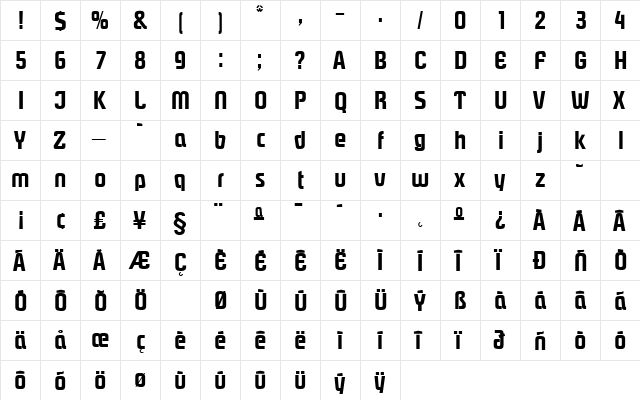
PhrasticMedium Regular
Design Context for PhrasticMedium Typeface
PhrasticMedium offers clean, dependable letterforms without strong stylistic allegiance, making it a practical choice for designers who need flexibility.